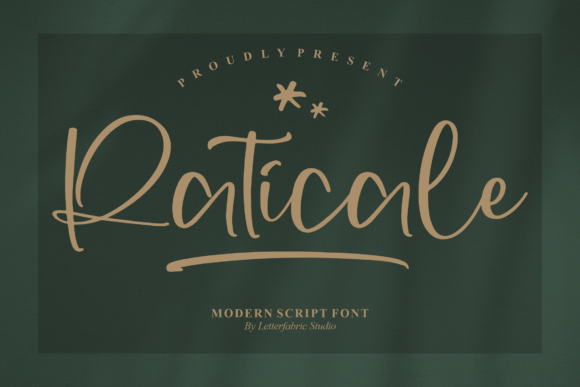
In a world awash with standardized, monotonous fonts, Raticale stands as a refreshing oasis of creativity. Its elegant strokes and playful curves mimic the beauty of handwritten script, inviting you to break free from the ordinary and ignite your imagination.
Raticale isn't merely a font; it's an artistic expression that will transform your designs into captivating masterpieces. Whether you're a seasoned designer or just starting your creative journey, Raticale is your perfect companion, ready to help you craft designs that speak to your audience's hearts.
Picture this: a stunning logo that dances gracefully across your business card, leaving an unforgettable impression on potential clients. Or perhaps you're creating a poster for an upcoming event, and you need a font that will grab attention and generate excitement. Raticale is the answer, its stylish characters adding a touch of sophistication and intrigue.
The versatility of Raticale is simply astounding. It seamlessly adapts to any project you throw its way, flourishing on product packaging, mugs, tote bags, and even T-shirts. Its charm extends to book covers, name cards, and invitation cards, adding an air of elegance that will surely impress your recipients.
With Raticale, the possibilities are endless. Its captivating strokes will transform your designs into engaging works of art, leaving your audience mesmerized. Don't settle for ordinary fonts that fade into oblivion; embrace the beauty of Raticale and let your creativity soar.
So, dive into the world of Raticale and discover a font that will revolutionize your designs. Experience the joy of creating something truly unique and unforgettable. Let Raticale be your guiding light, illuminating your path to design excellence.